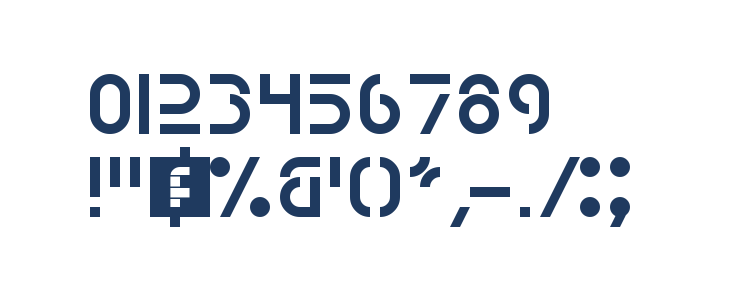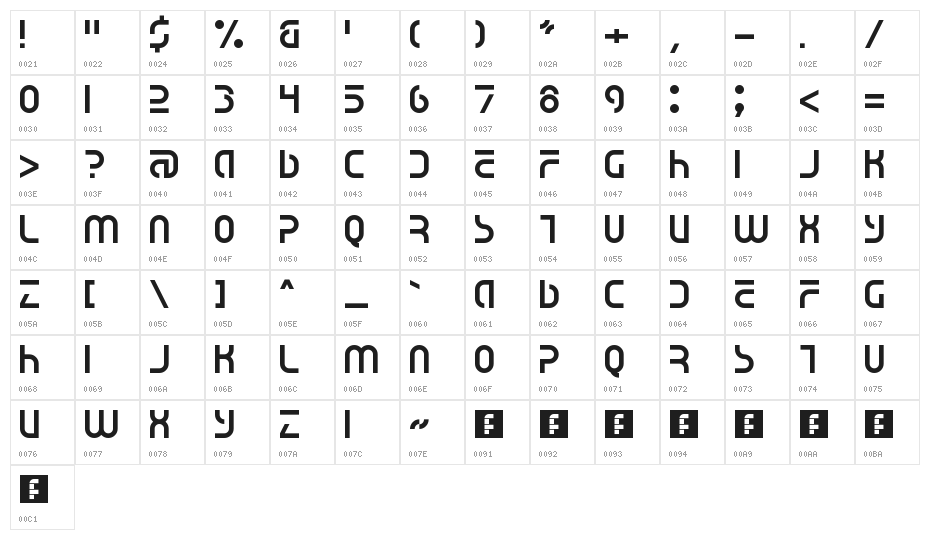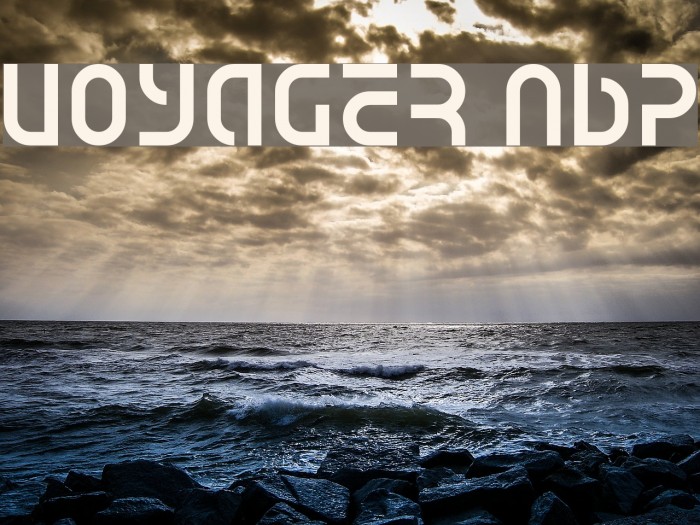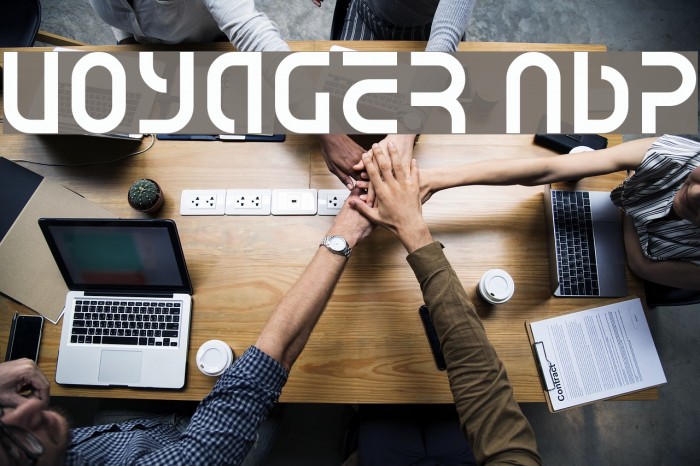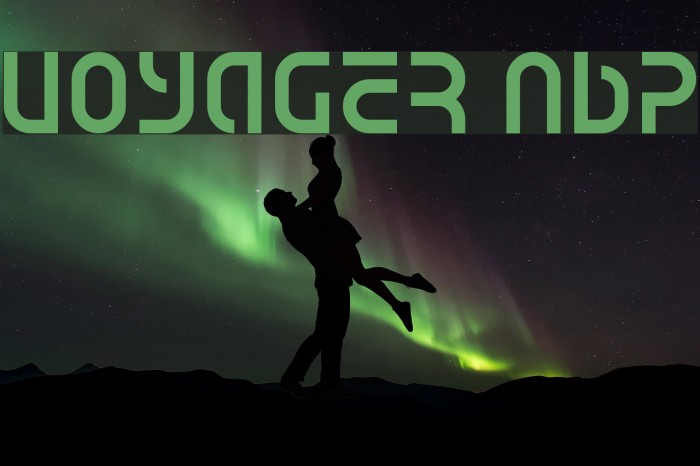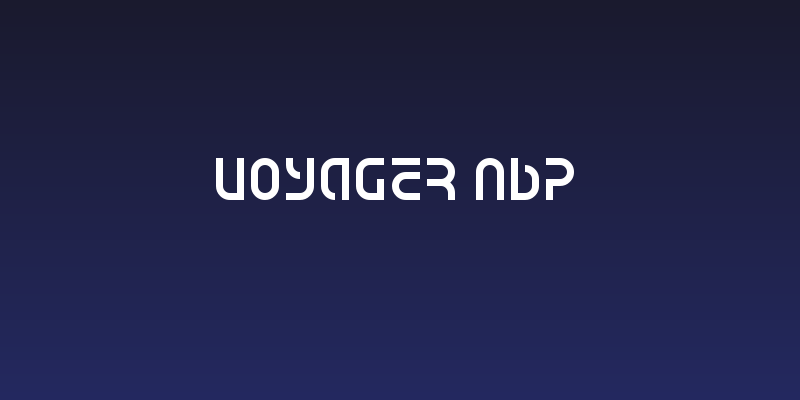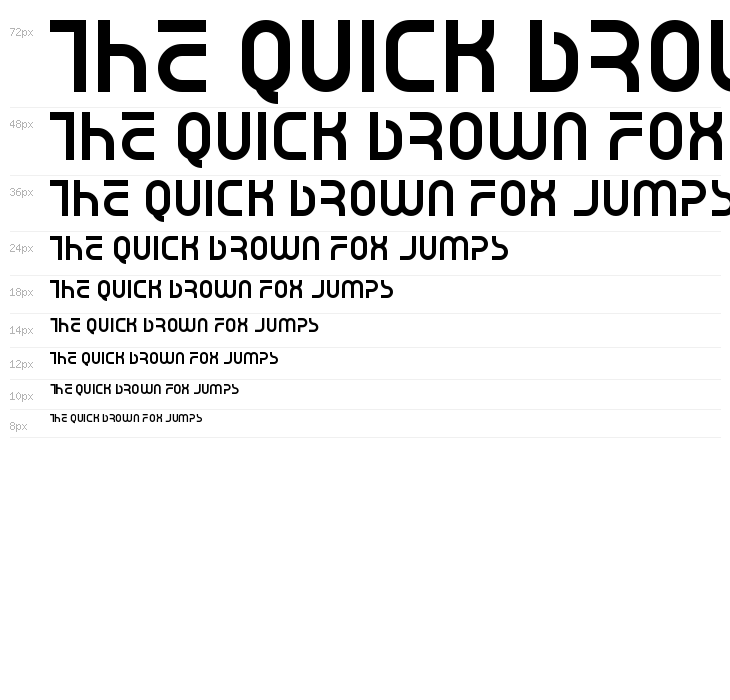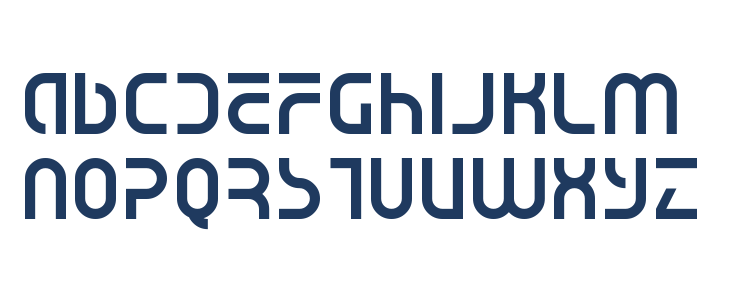
Voyager NBP Font
Voyager NBP Description
This font features a futuristic and geometric design, characterized by its bold and uniform stroke weight. The letters are crafted with a unique blend of curves and straight lines, giving it a modern and tech-inspired appearance. The uppercase and lowercase letters maintain a consistent style, with rounded edges and a slightly condensed form. Numbers and special characters follow the same design principles, ensuring a cohesive look across all glyphs. The font's clean and structured appearance makes it suitable for digital and print media, where a contemporary and innovative aesthetic is desired.
VOYAGER-NBP UPPERCASE
VOYAGER-NBP LOWERCASE
VOYAGER-NBP OTHER CHARS
| Use Case | Headlines, Logos, Digital interfaces |
| Proposed Projects | Ideal for technology branding, sci-fi movie posters, video game titles, and digital interfaces. |